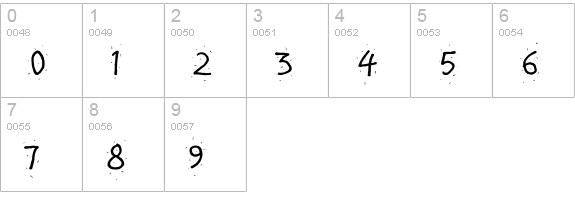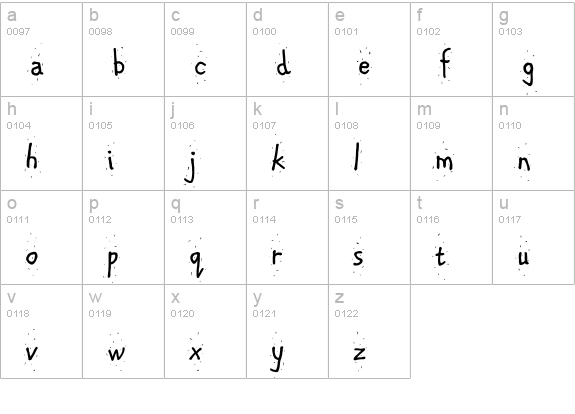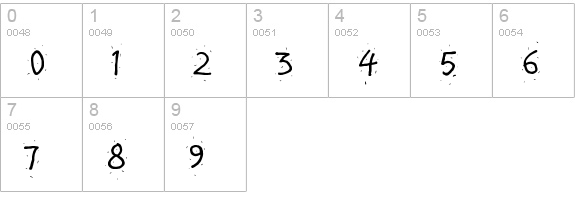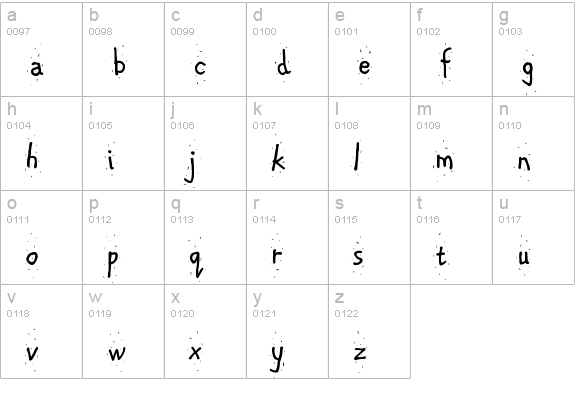
Chipper Plain Font Details
Chipper Plain font is a delightful and charming typeface that exudes a sense of playfulness and whimsy. With its rounded edges and clean lines, this font is perfect for adding a touch of fun to your designs. Whether you're working on a children's book, a greeting card, or a website, Chipper Plain font is sure to bring a smile to your audience's face. The best part? Chipper Plain font is available for free download at FontsMarket.com. Simply visit the website to access this versatile and engaging font for all your creative projects. Don't miss out on the opportunity to add a pop of personality to your designs with Chipper Plain font today!